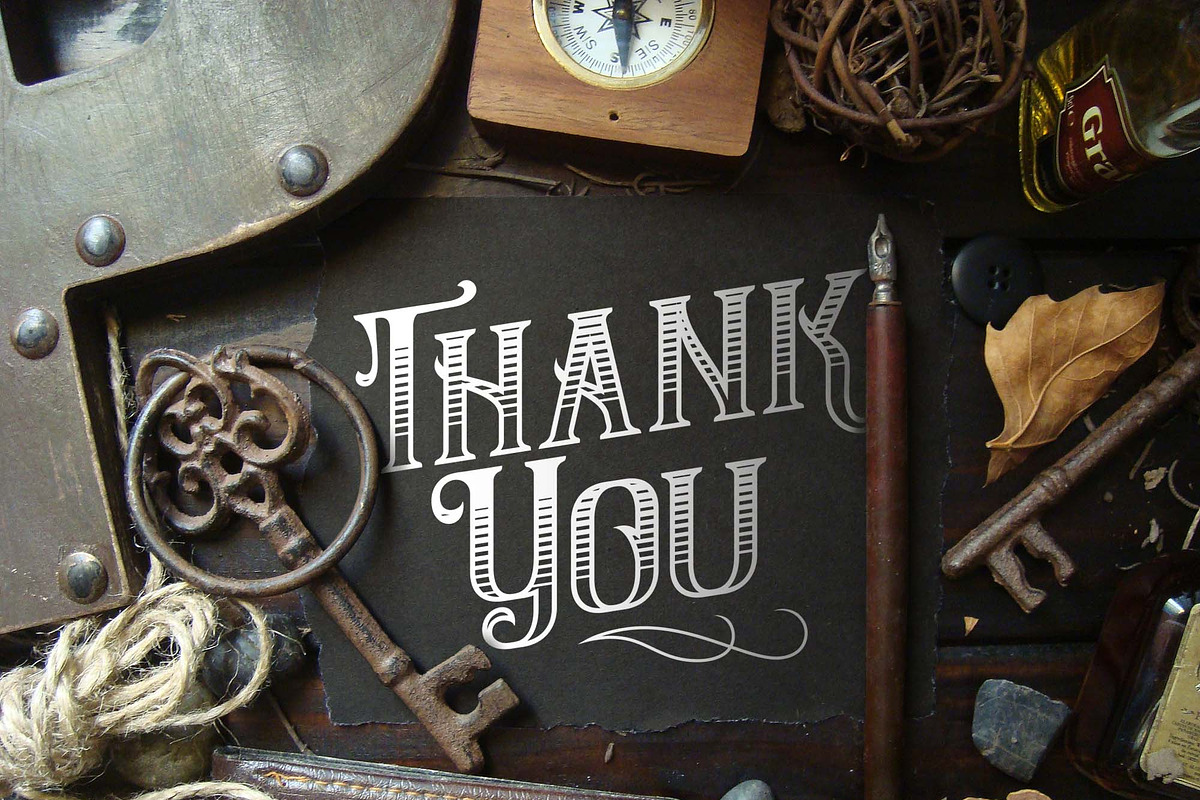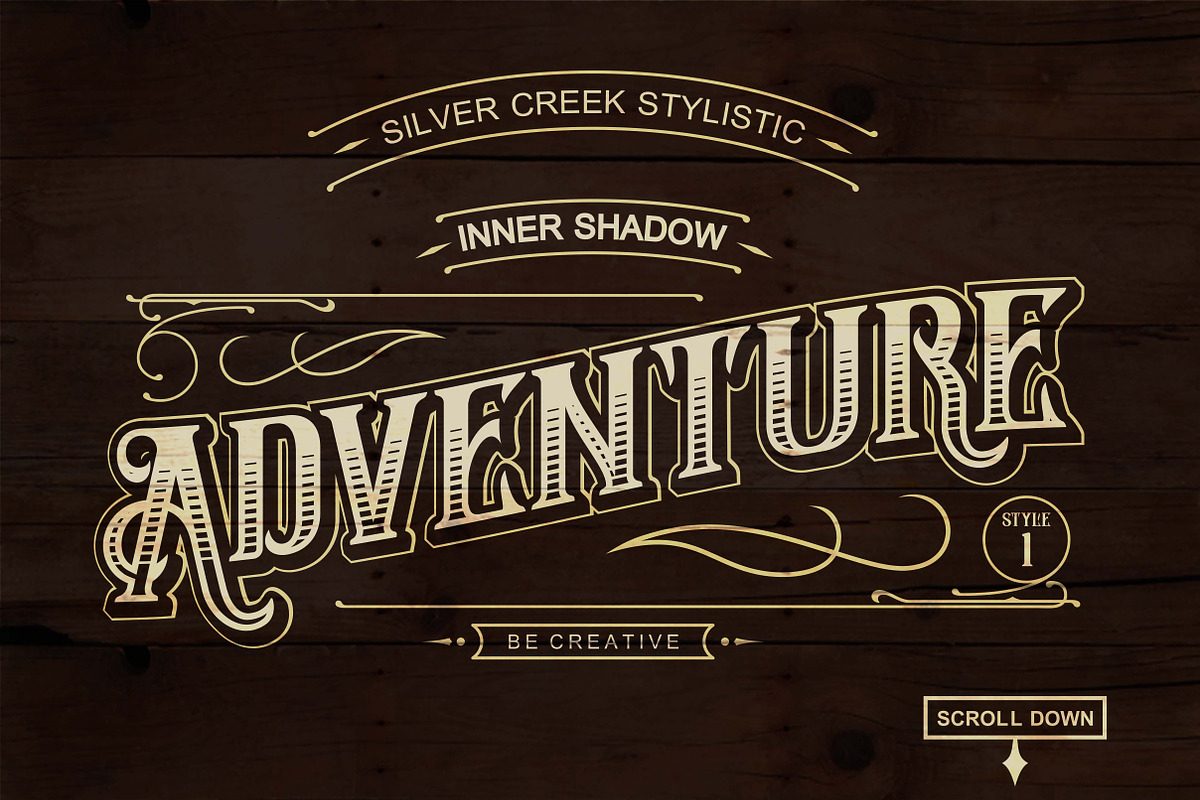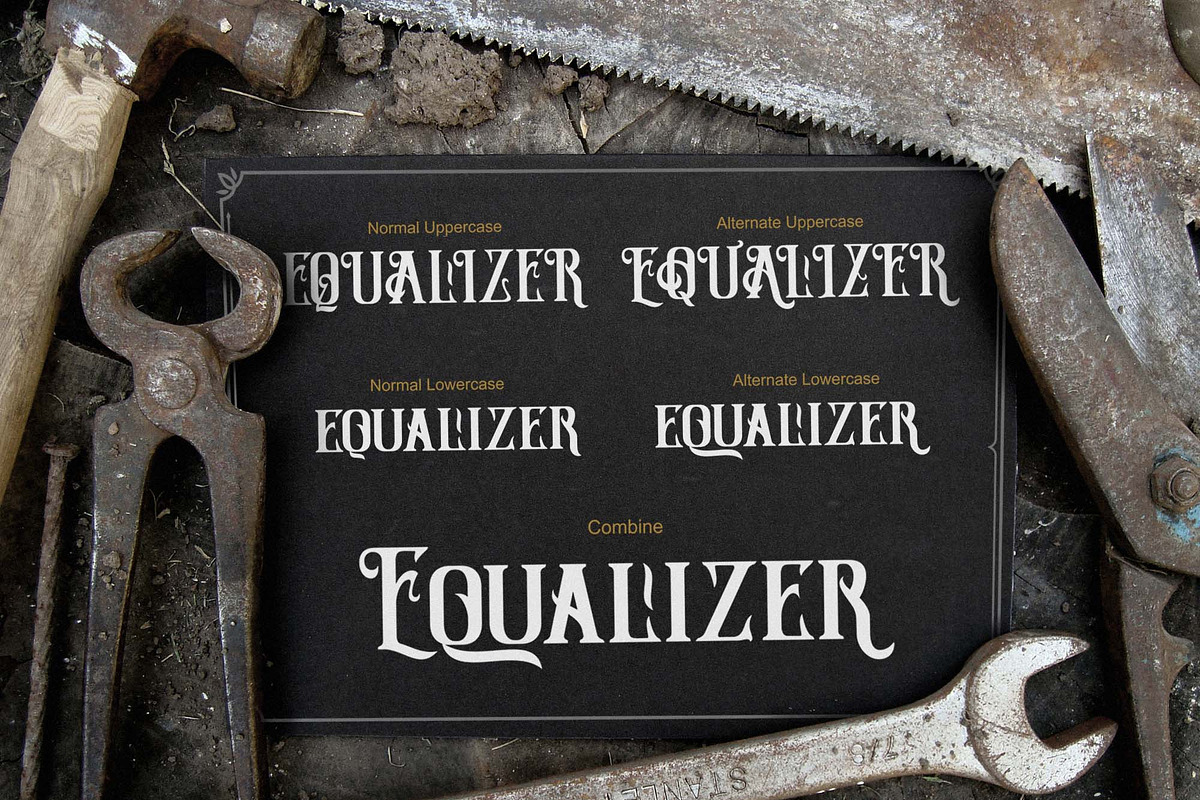
Silver Creek Typeface
Silver Creek Typeface by Brosnes is a font selected for branding, posters, packaging, typography.
- Silver Creek Typeface comes with 4 font family (basic, line , star & shadow) includes a full set of capital and lowercase letters, as well a
- Character Set A-Z
Why Silver Creek Typeface is worth a look
Silver Creek Typeface by Brosnes fits naturally into Branding, posters, packaging, typography.